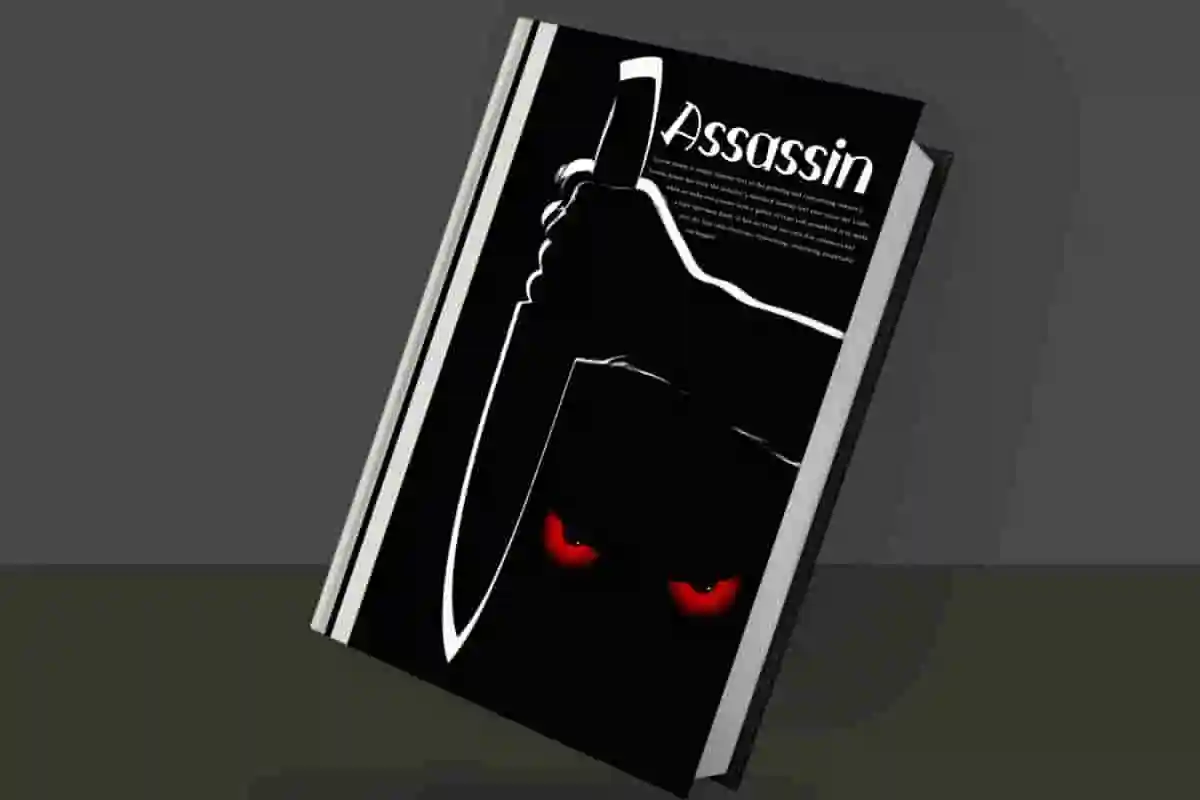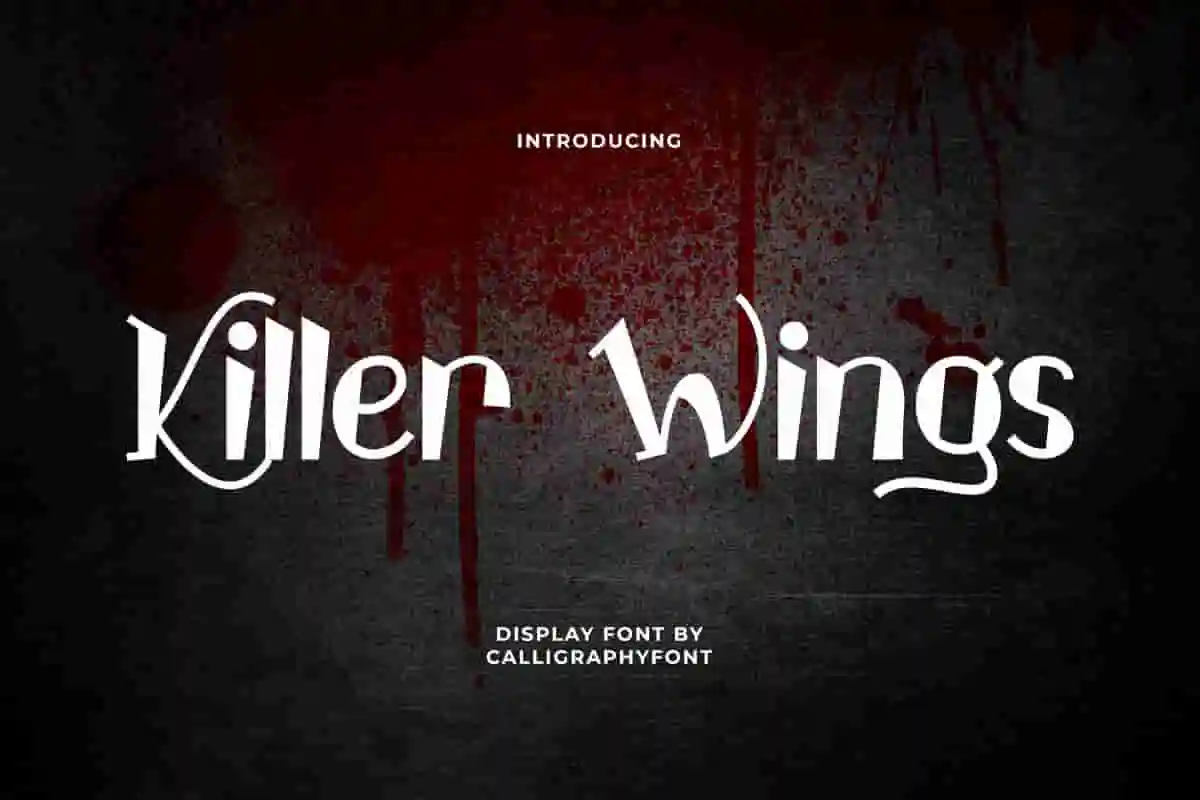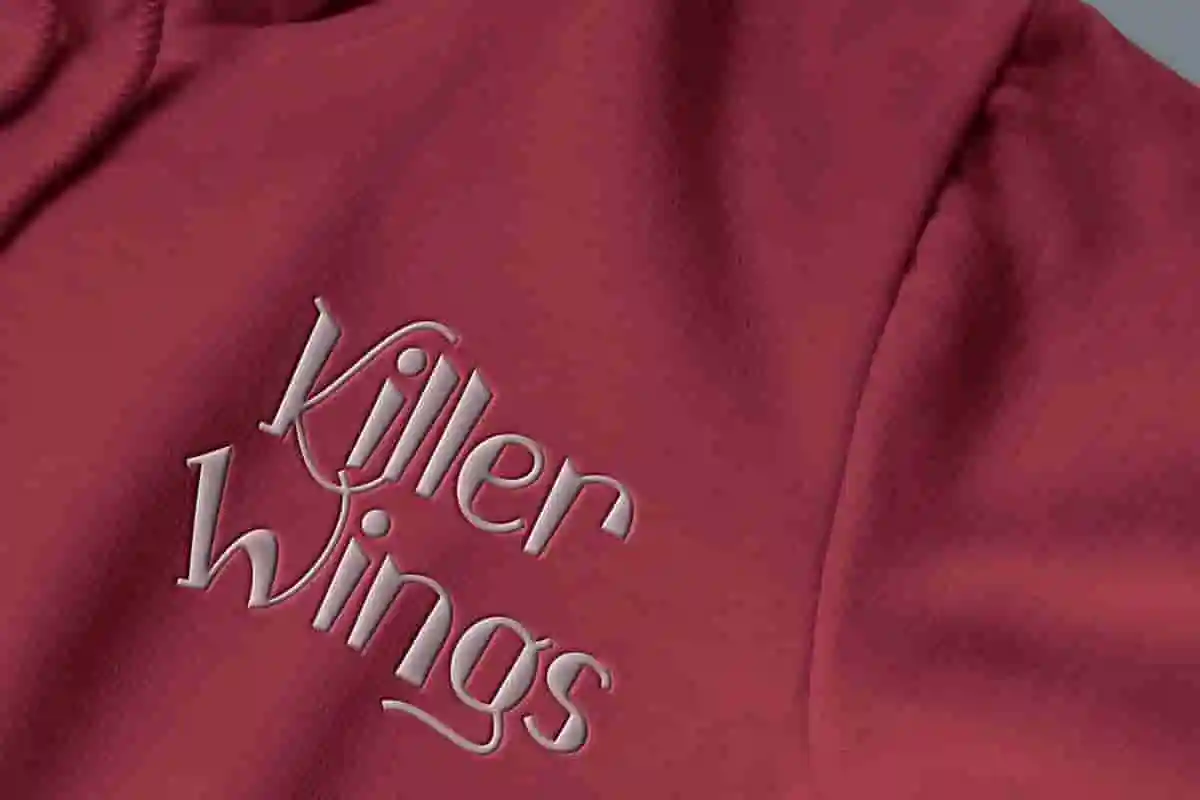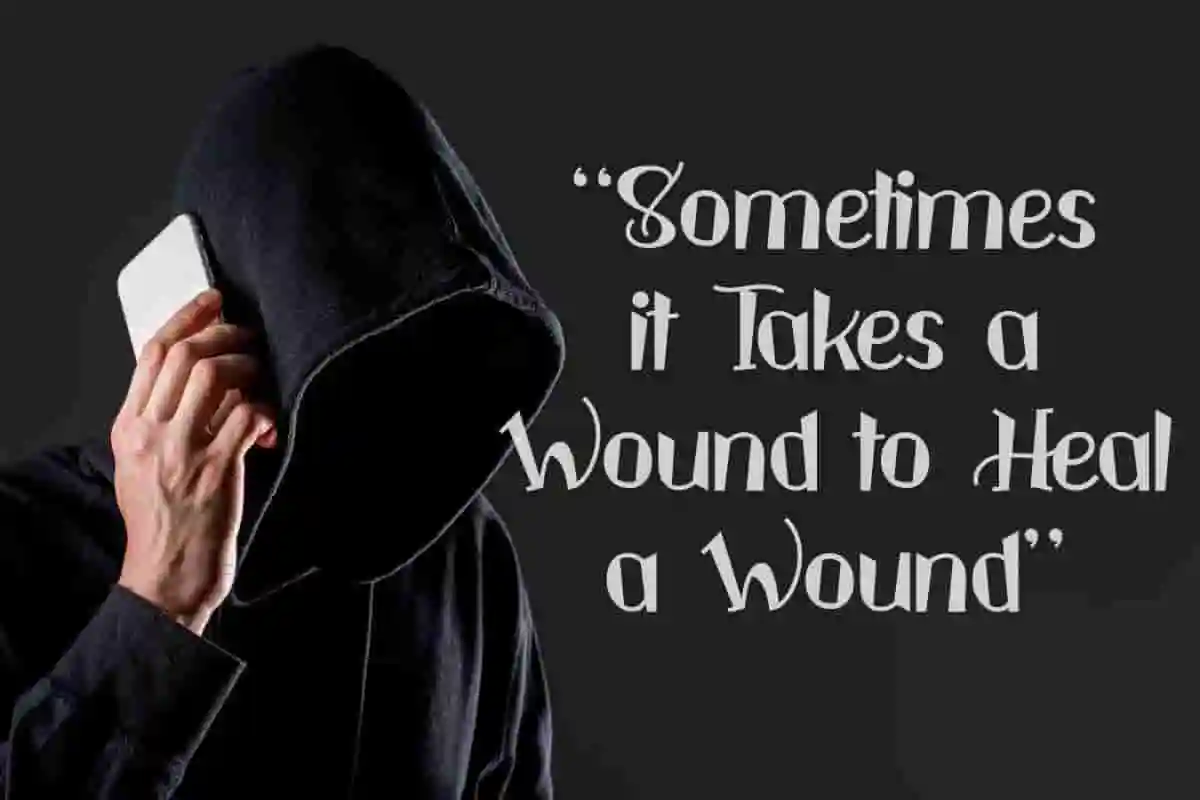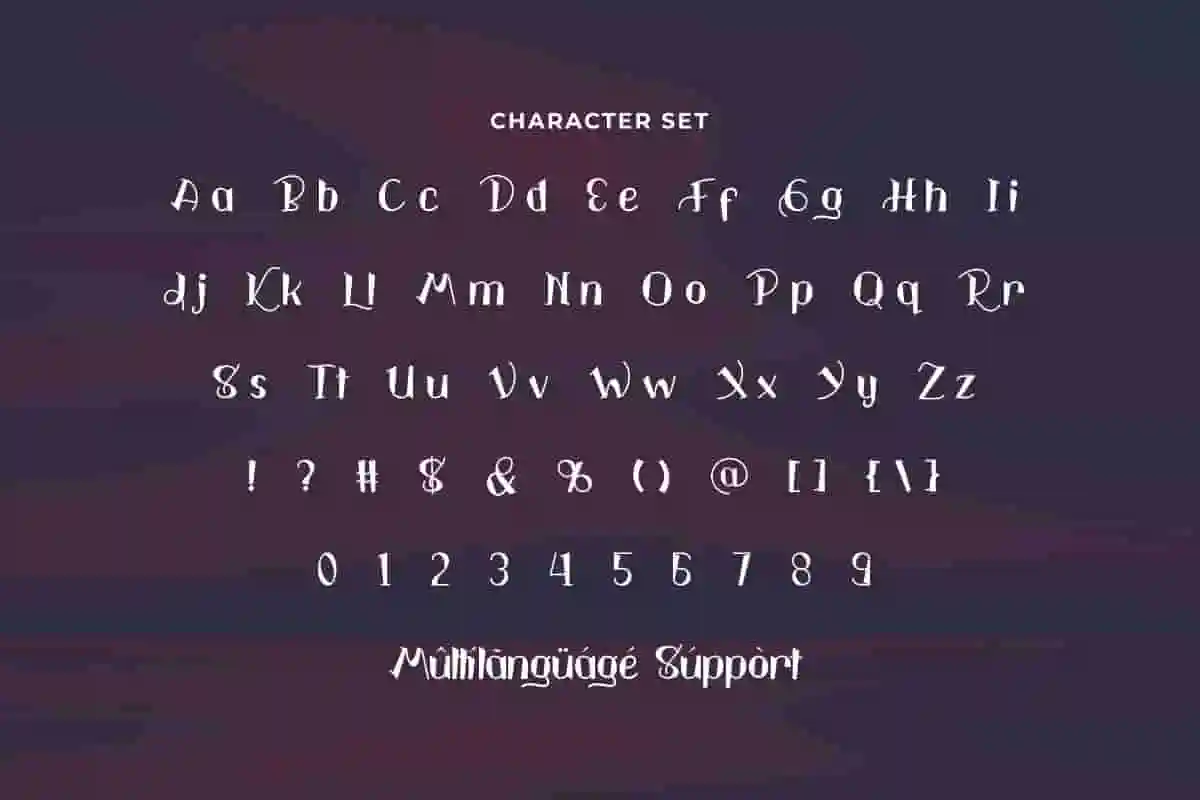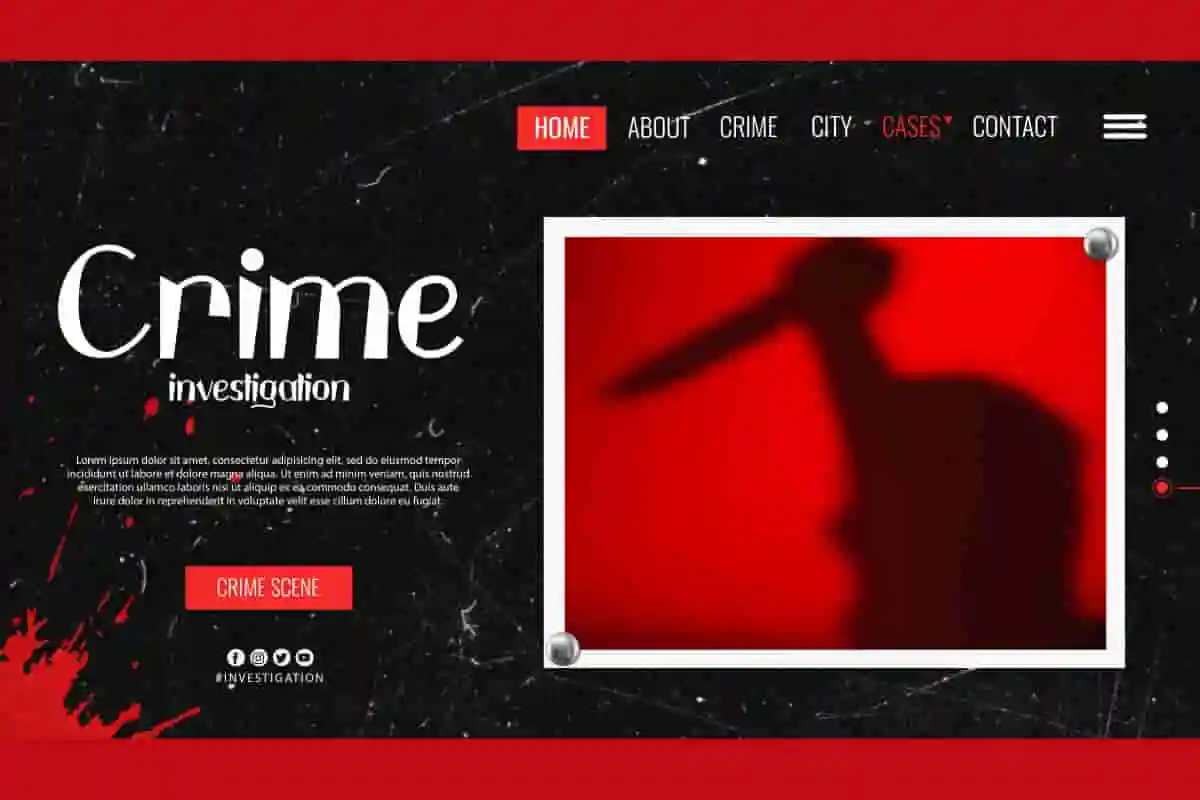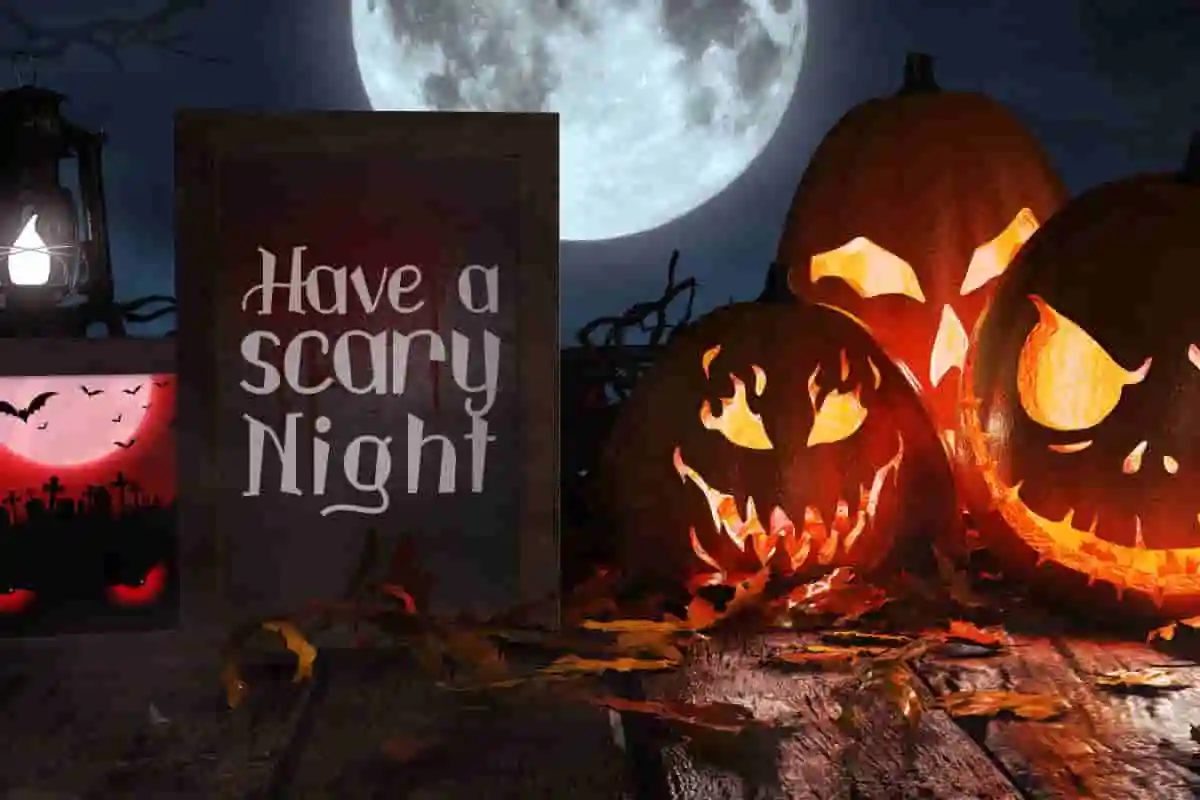
Killer Wings Font
Killer Wings Font is a modern dark display font capable of making appeal killer. It will work fine for advertisement, brochure, header, movie, sticker, website, writer, and anything else that requires a gripping typeface.
Killer Wings Font is a cool display font with the creepy vibe. Although inspired by the horror theme, the appearance is made modern and stylish so it will suit any industry, such as accessories, advertisement, amusement park, artist, author, café, clothing brand, event or festival just like Halloween, fashion designer, film, handicrafts, merchandise, movie, musician, printing, publishing, restaurant, writer, etc.
Killer Wings Font is an attractive font with a unique look and spooky genre to match its name. It will be able to stun anyone into your creative project, such as billboard, brand logo, brochure, business card, catalog, cover, embossed design, flyer, header, label, menu pamphlet, mockup design, packaging design, poster, quotes, screen print, signage, stationery, sticker, title, watermark, website, and many more.